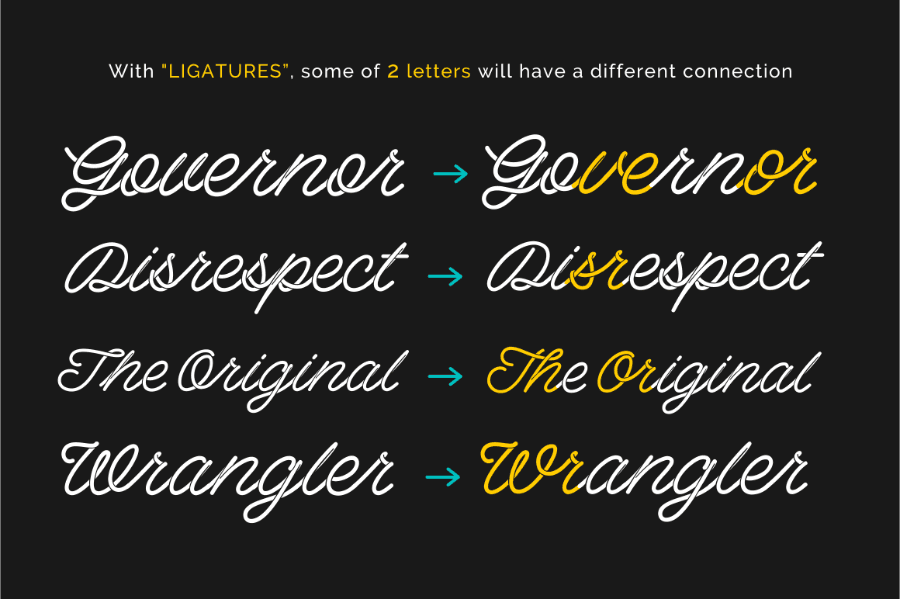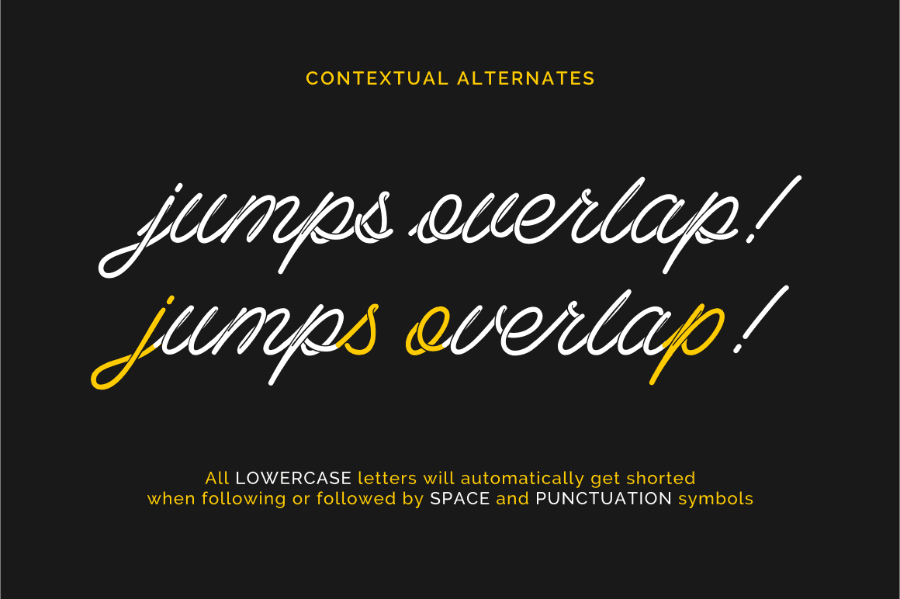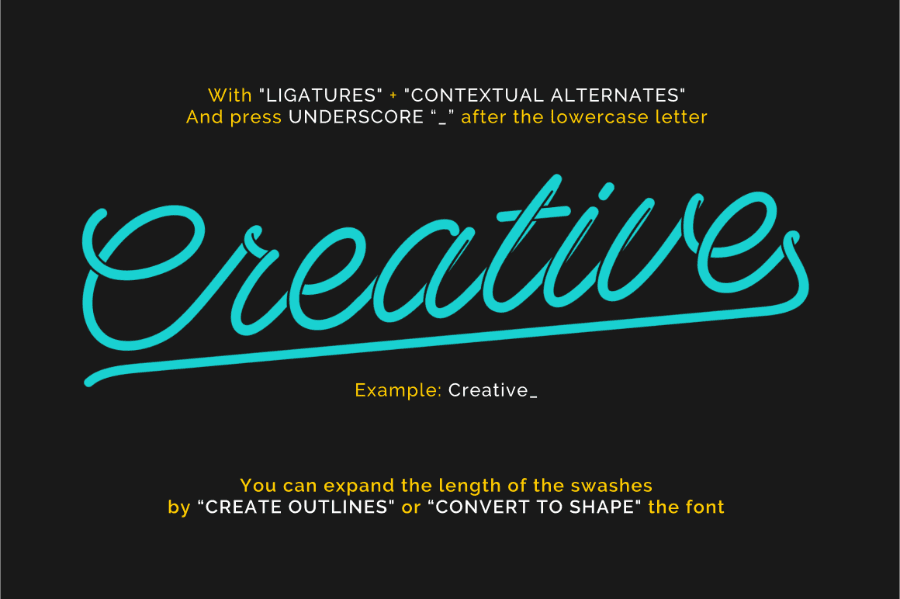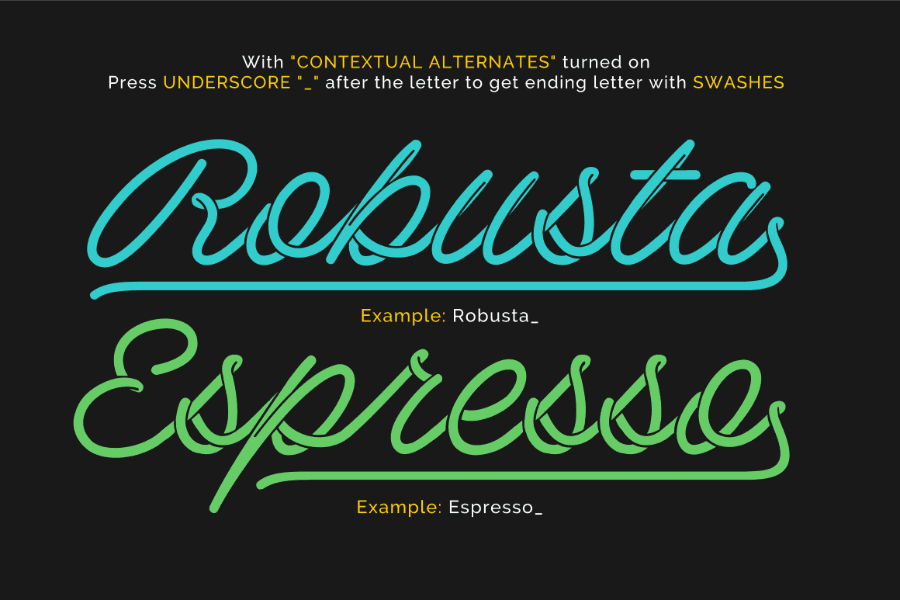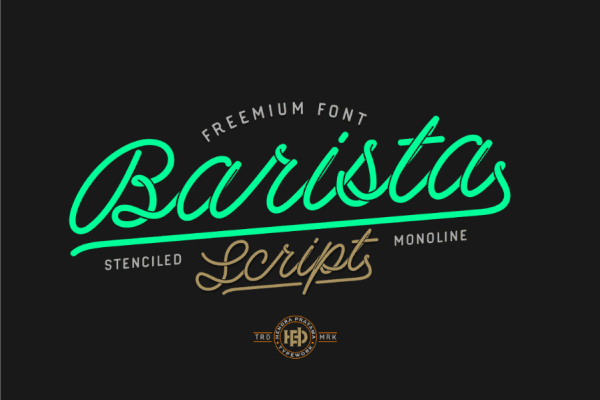
For many years, this author has been creating so many monoline – hand lettering that just looks like this font. Barista Script Free Font connected like noodles or a rope, from start to end of the letter perfectly. The stencil shapes of this font will make your typography looks like a rope formed into letters just like a custom hand-lettering. It also comes with OpenType features such as Ligatures and Contextual Alternates. You can also learn how to use those features by clicking here and watch the tutorial. With this font, you can create various typography design such as Logotype, short quotes, t-shirt design or a poster in a minutes, no effort at all!Thanks to Hendra Pratama for creating and sharing such an exquisite typeface to the community. This typeface comes with personal and commercial license. However, you can consider to donate here to support the author.